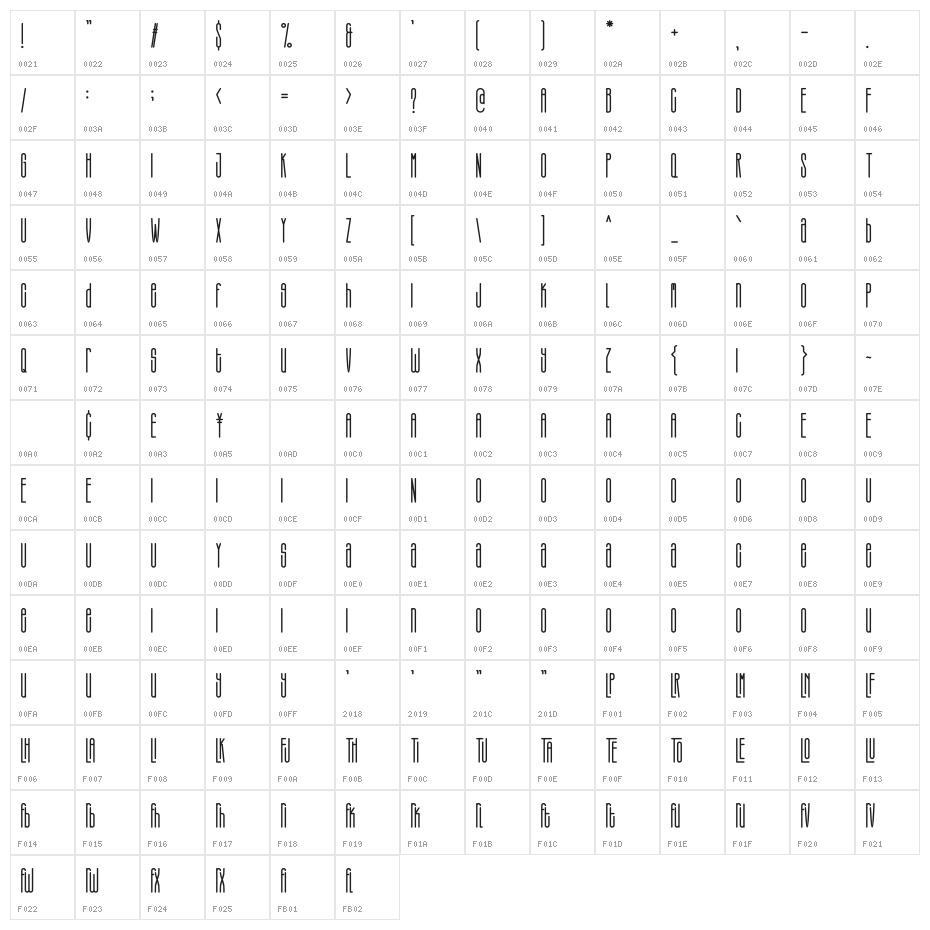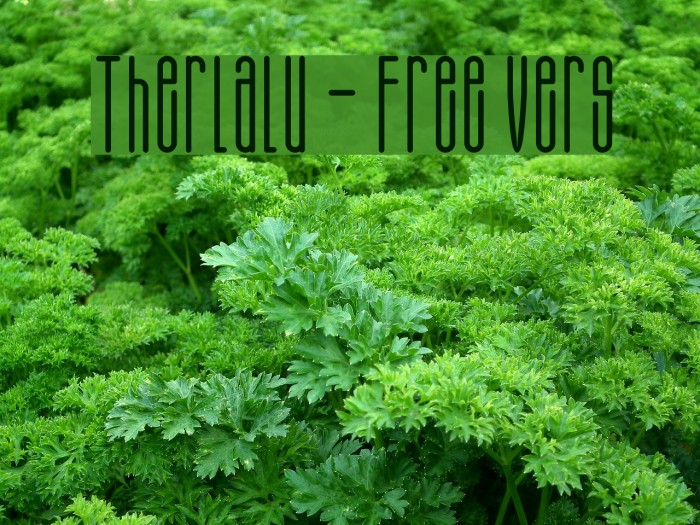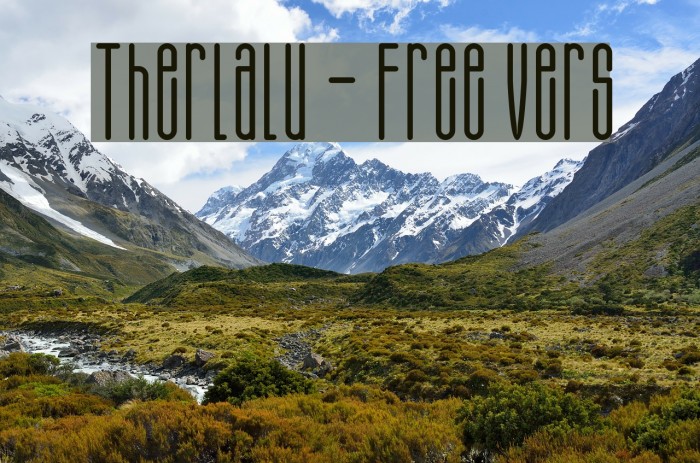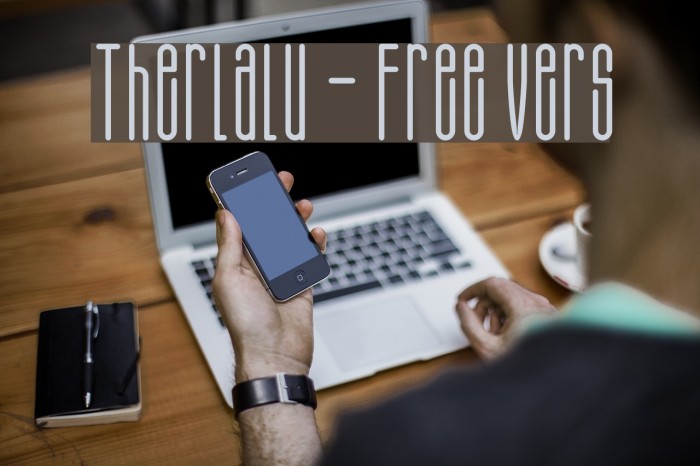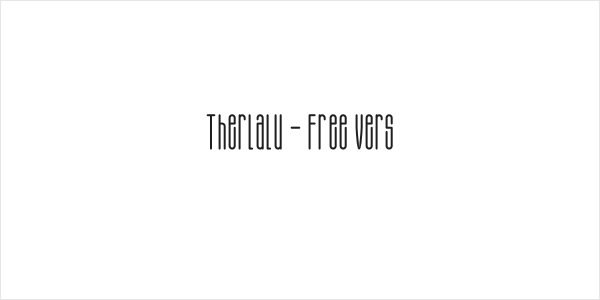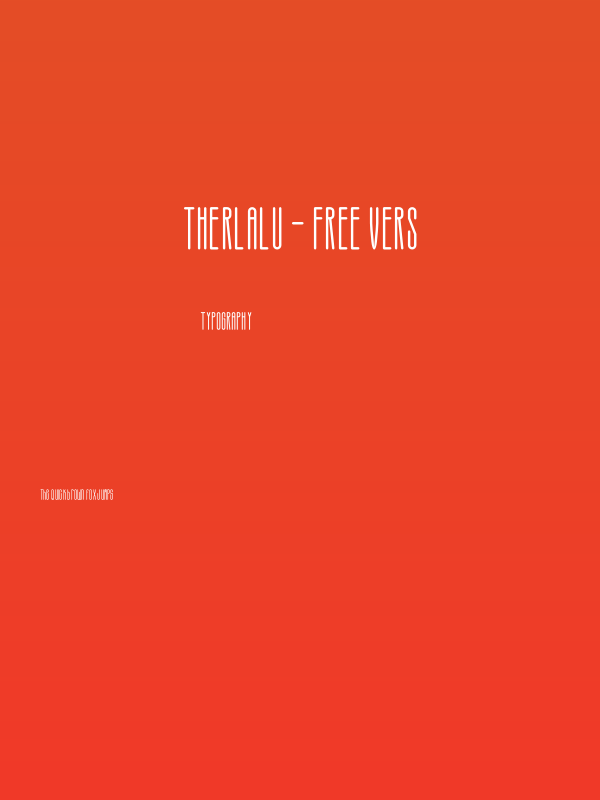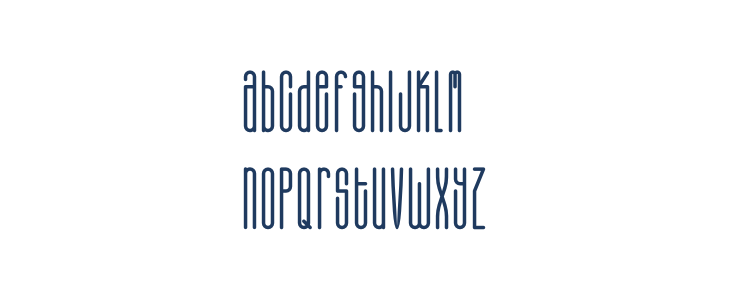
Therlalu - Free Vers Font
Therlalu - Free Vers Description
This font features a tall and narrow design, characterized by its elongated letterforms and minimalistic style. The uppercase and lowercase letters maintain a consistent height, giving it a uniform appearance. The strokes are clean and straight, with a slight curve at the terminals, adding a touch of elegance. The font is highly legible, even at smaller sizes, making it versatile for various design applications. The special characters and numbers are designed to match the overall aesthetic, ensuring a cohesive look across all text elements.
| Proposed Projects | Ideal for modern branding, editorial design, posters, and digital interfaces where a sleek and contemporary look is desired. |